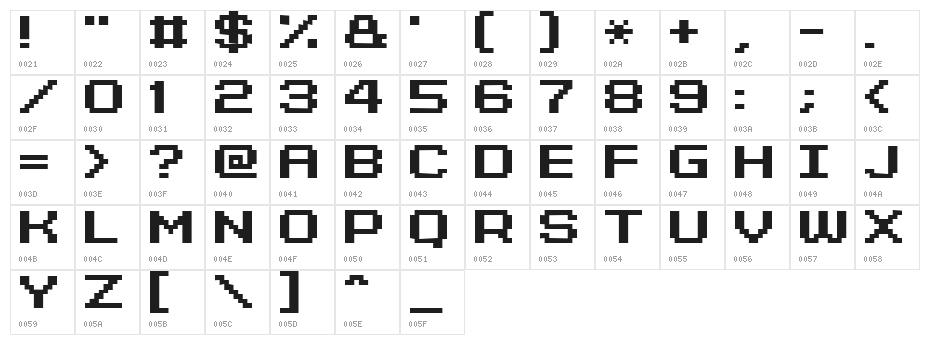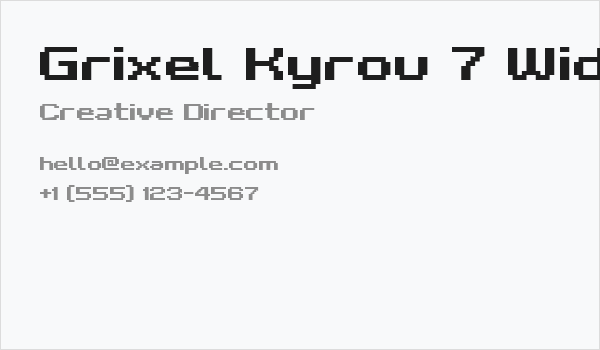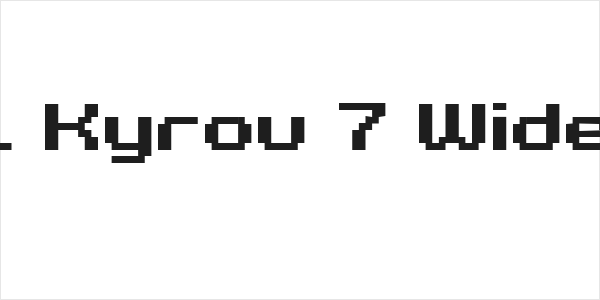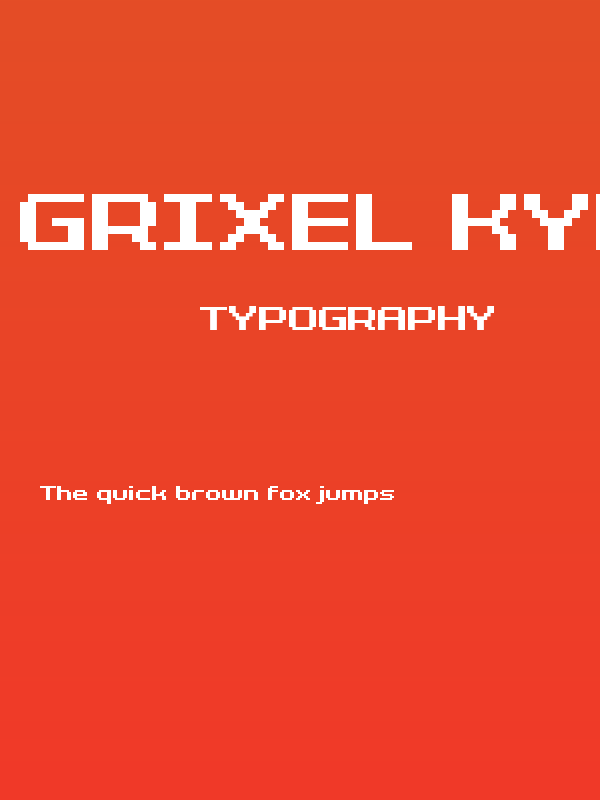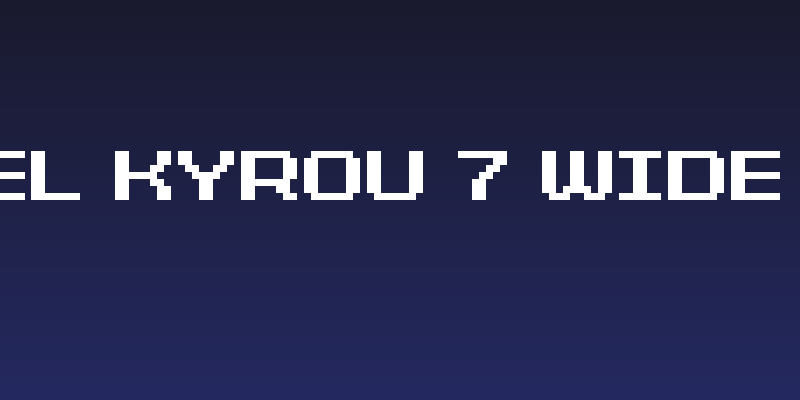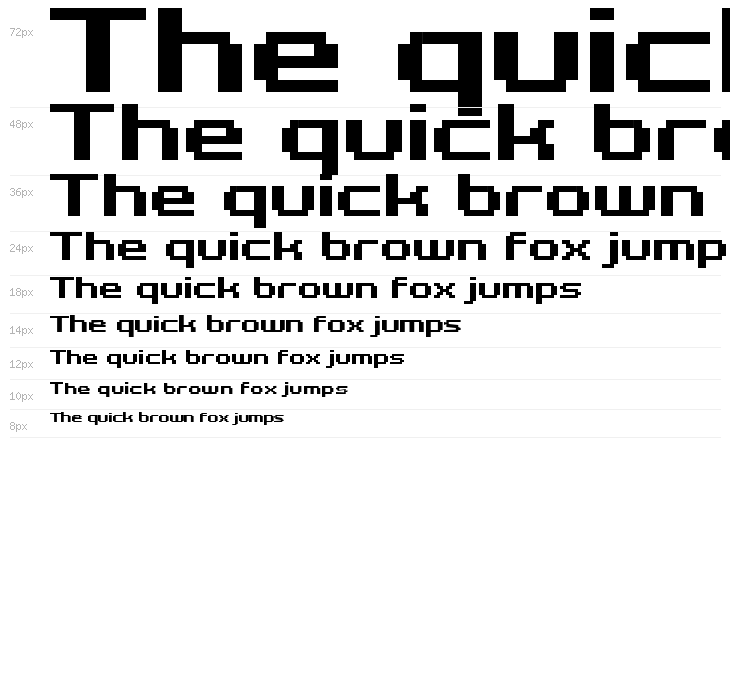
Grixel Kyrou 7 Wide Bold Font
Grixel Kyrou 7 Wide Bold Description
This font features a bold, pixelated style reminiscent of classic 8-bit video games. Each character is constructed with a blocky, grid-like appearance, giving it a distinctly retro and digital feel. The uppercase and lowercase letters maintain a consistent width, contributing to a uniform and cohesive look. The numerals and special characters follow the same pixelated design, ensuring visual harmony across all glyphs. This font's boldness and geometric structure make it highly legible, even at smaller sizes, while its nostalgic aesthetic evokes a sense of playfulness and creativity.
| Overall Style | Retro |
| Use Case | Logos, Headlines, Digital Art |
| Proposed Projects | Ideal for video game design, retro-themed posters, digital art projects, and any creative work that seeks to capture a nostalgic, playful vibe. |